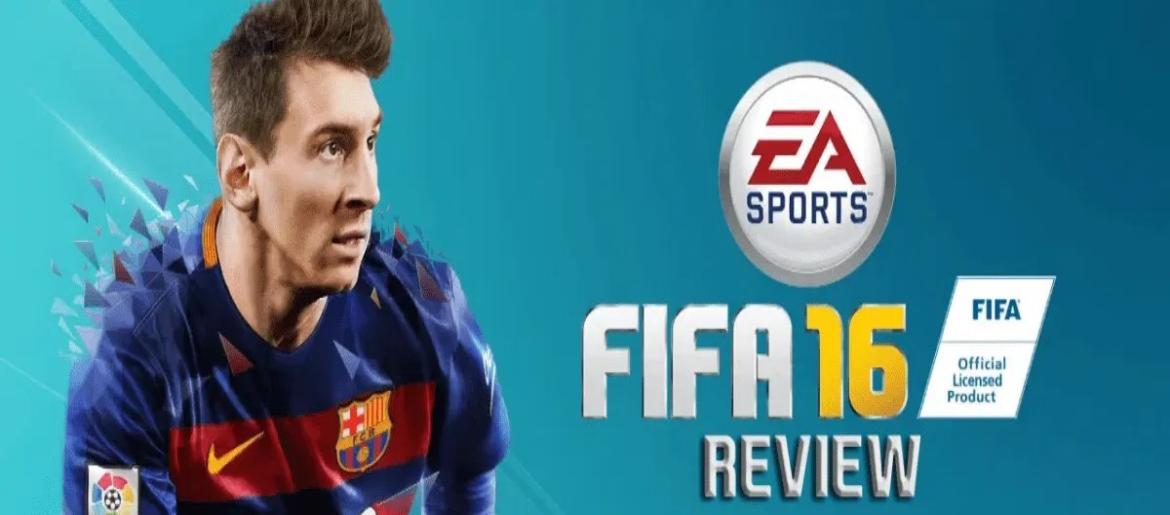
FIFA 16 Font
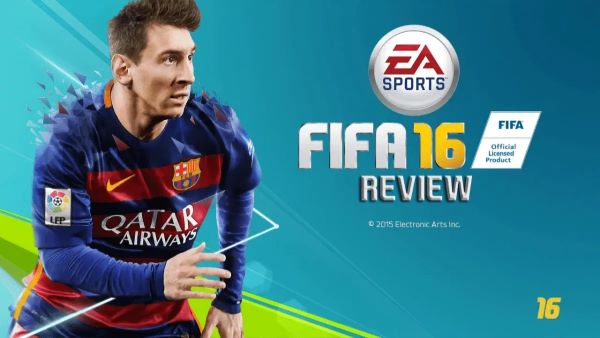
What Font Does FIFA 16 Use?
The FIFA 16 Font is EA Sans Curves, the typeface used in the game’s logo, menus, and promotional materials. It is a modern sans-serif font with smooth curves, clean geometry, and excellent readability, giving FIFA 16 a sleek, professional, and broadcast-style visual identity.
EA Sans Curves was designed by Dino dos Santos exclusively for Electronic Arts and is not publicly available for licensing or download. Because it is proprietary, designers often rely on similar free fonts with rounded geometry and modern proportions to recreate the FIFA-style look for mockups and fan projects.
About FIFA 16
FIFA 16 is a football simulation video game released in 2015 by EA Sports. It introduced new gameplay features, improved defensive mechanics, and expanded women’s national teams. The game was praised for its realism and presentation. Its clean typography plays a key role in maintaining a professional, televised-sports atmosphere, helping menus, scoreboards, and branding feel authentic and polished.